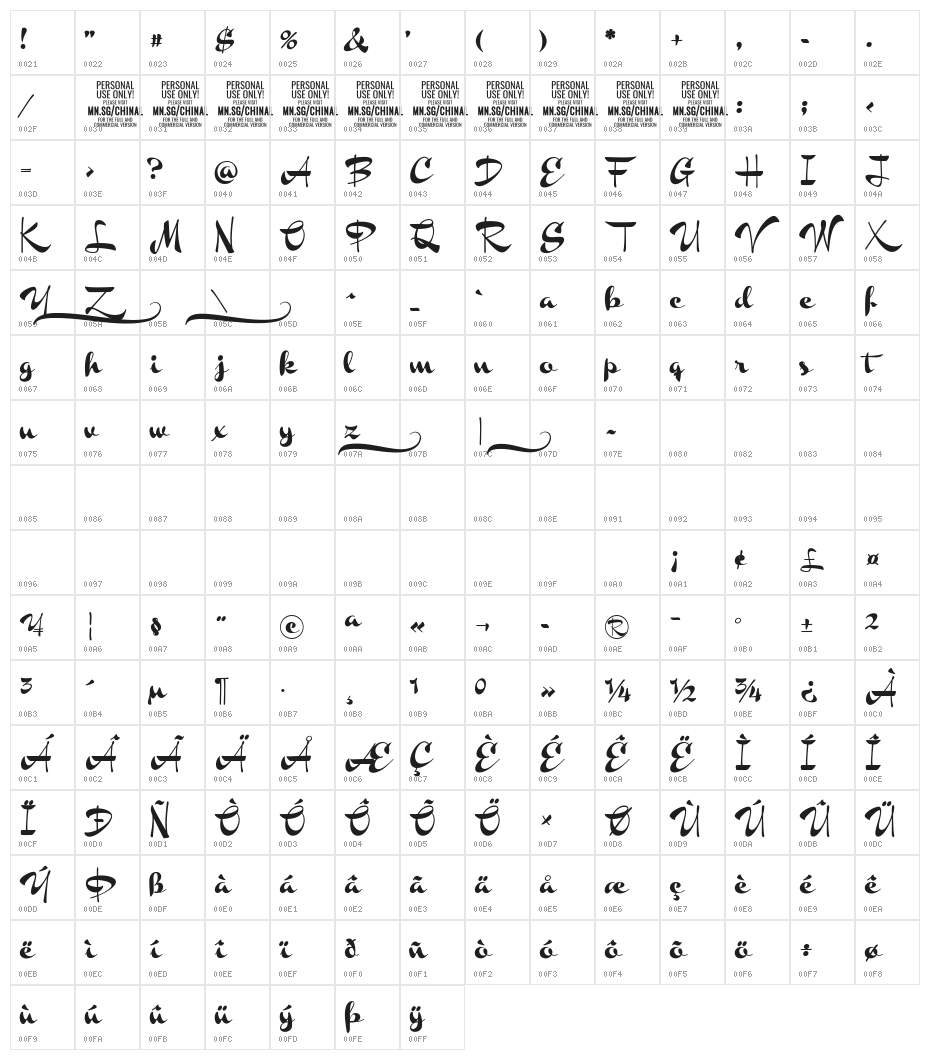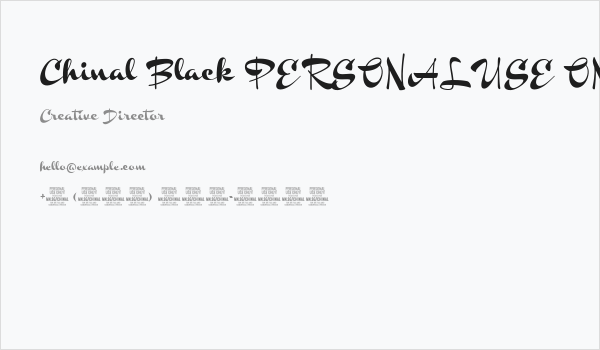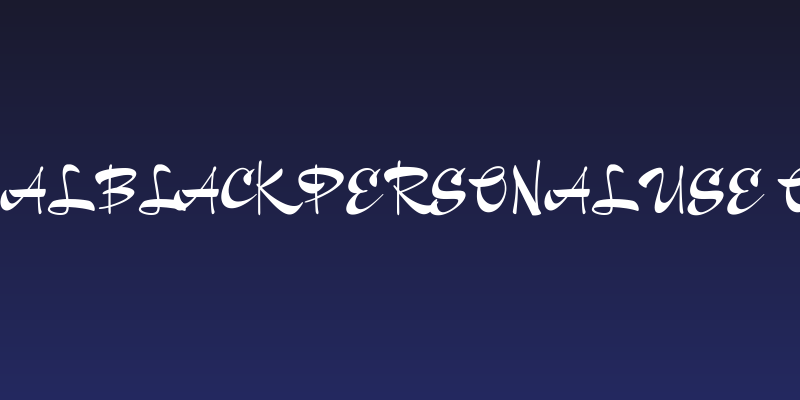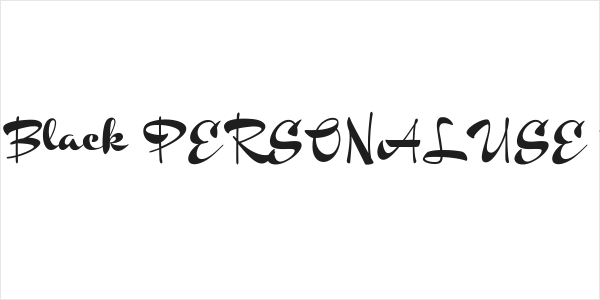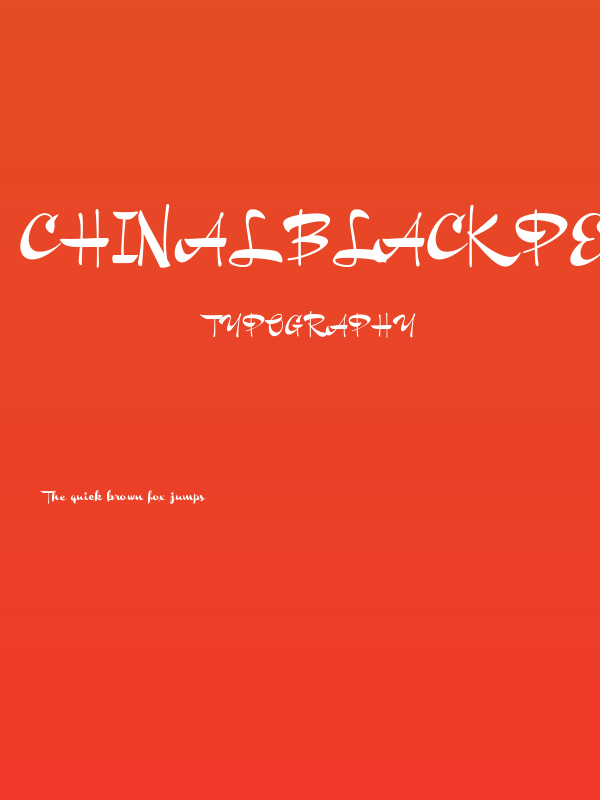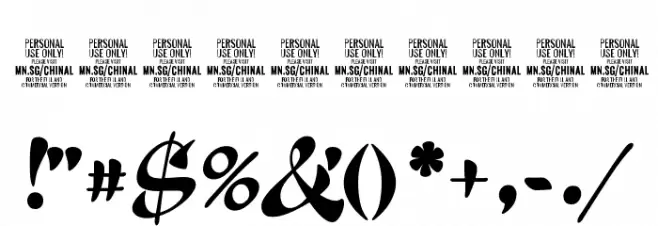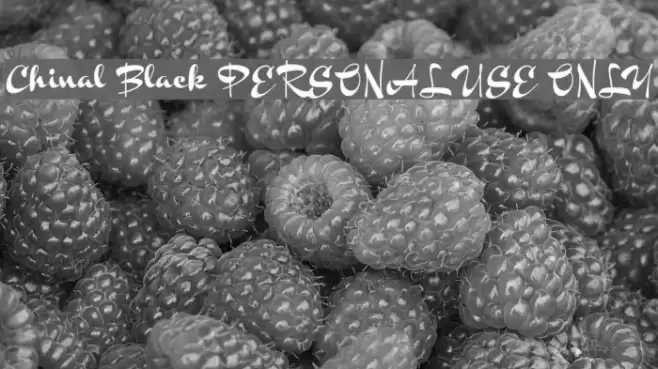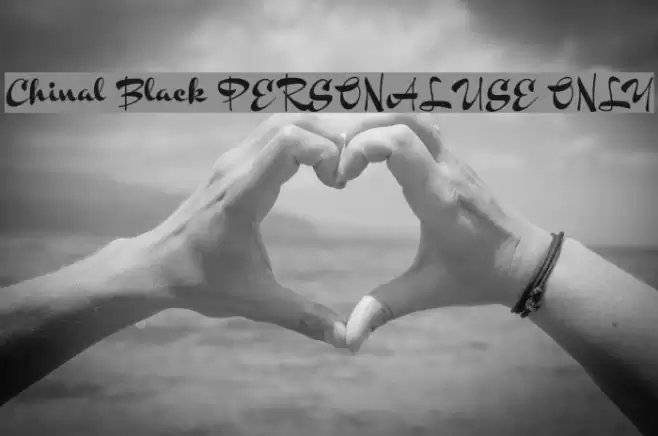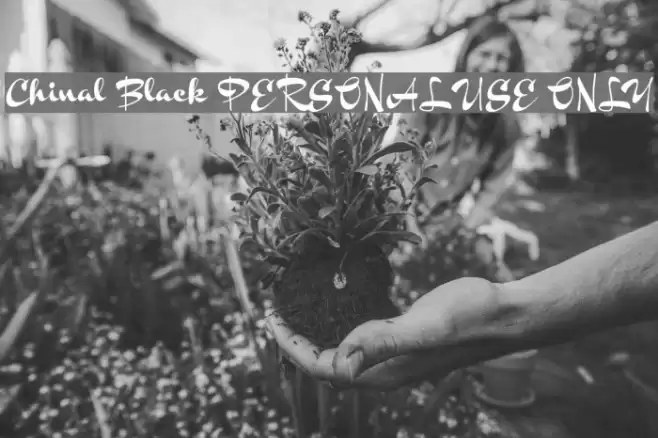
Chinal Black PERSONAL USE ONLY Font
✎ Script
Chinal Black PERSONAL USE ONLY Description
This font features a bold and expressive script style with a dynamic flow, characterized by its thick strokes and elegant curves. The uppercase letters have a distinct flair, with some letters incorporating unique loops and swashes that add a decorative touch. The lowercase letters maintain a consistent fluidity, making them visually harmonious with the uppercase set. The numerals and special characters are designed to match the overall style, with bold and curvaceous forms that ensure readability while maintaining the font's artistic essence. This font's striking appearance makes it ideal for projects that require a strong visual impact.
| Use Case | Logos, Headlines, Posters |
| Proposed Projects | Ideal for branding, invitations, posters, and any design requiring a bold, artistic touch. |